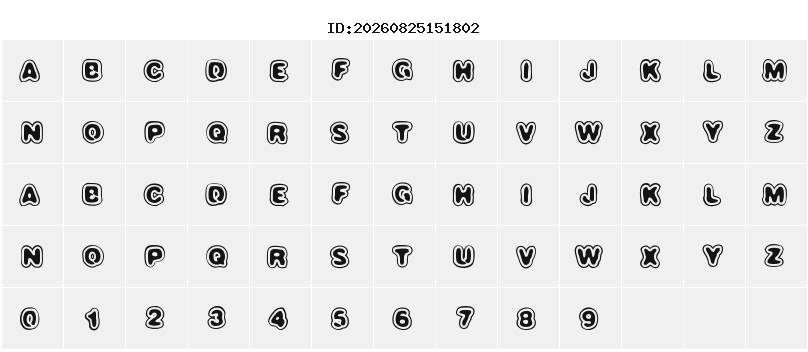
• Font Name: SOFT ADDICTIONS
• Full Font Name: SOFT ADDICTIONS
• Version: Version 1.00 March 8, 2015, initial release
About SOFT ADDICTIONS.ttf
SOFT ADDICTIONS.ttf is a modern, elegant sans-serif font designed for ultimate readability and visual harmony. Perfect for branding, headlines, web design, and print materials.